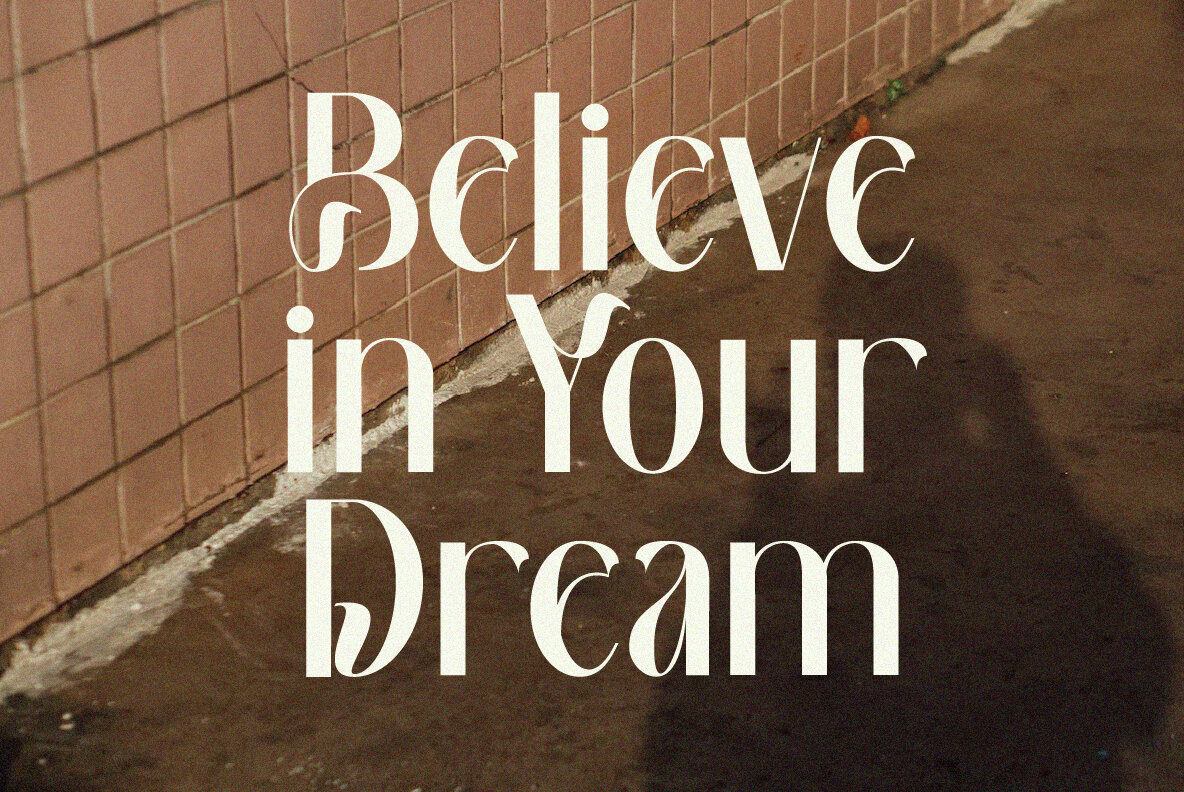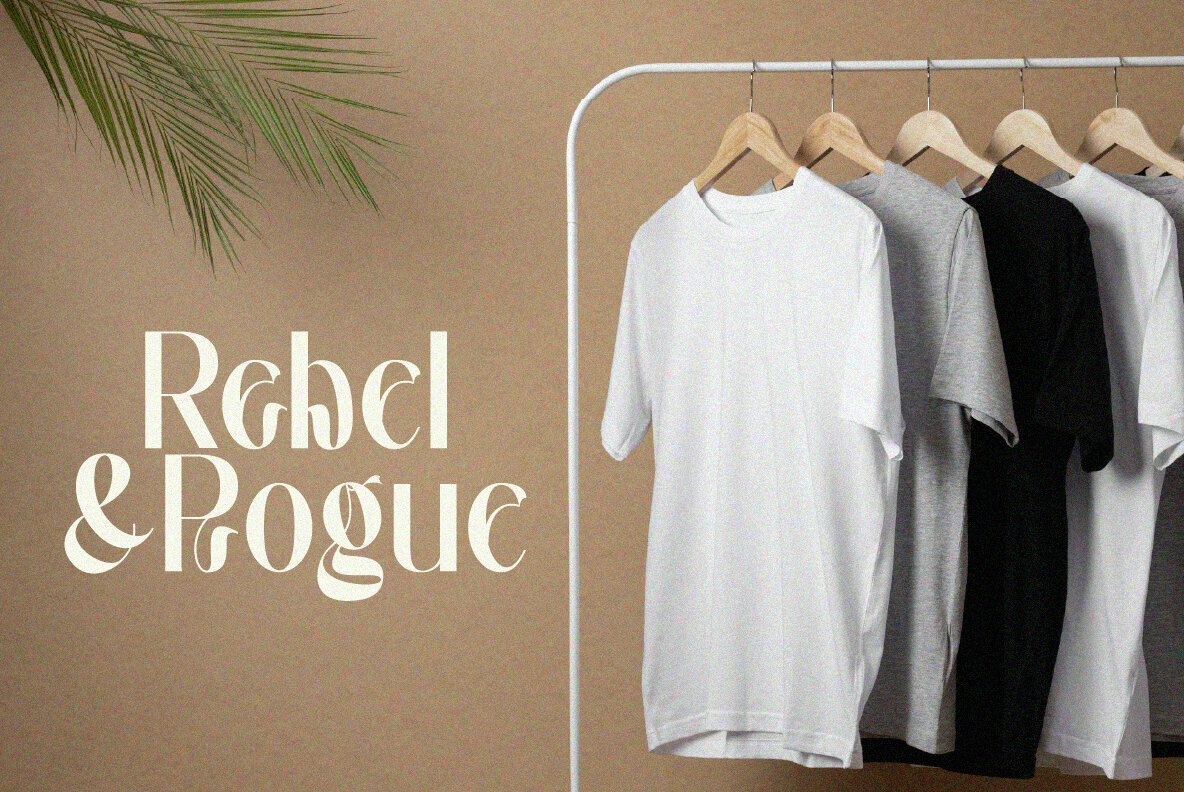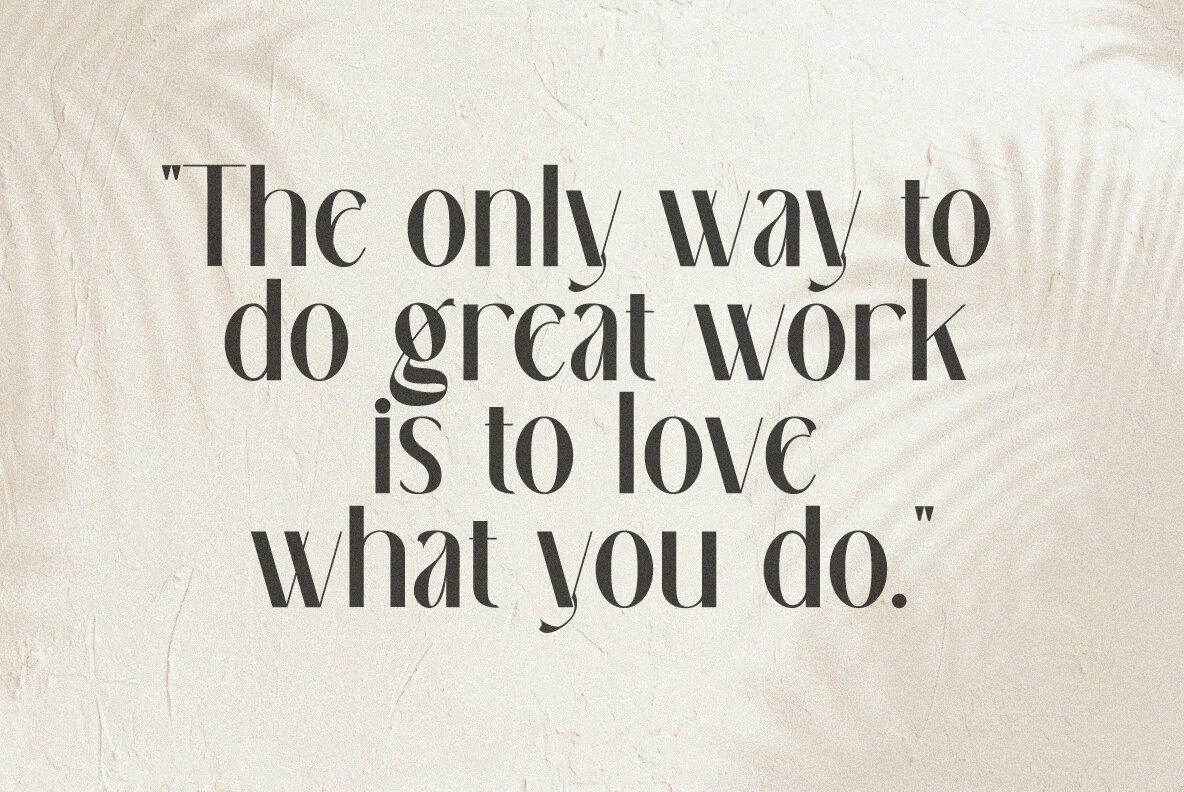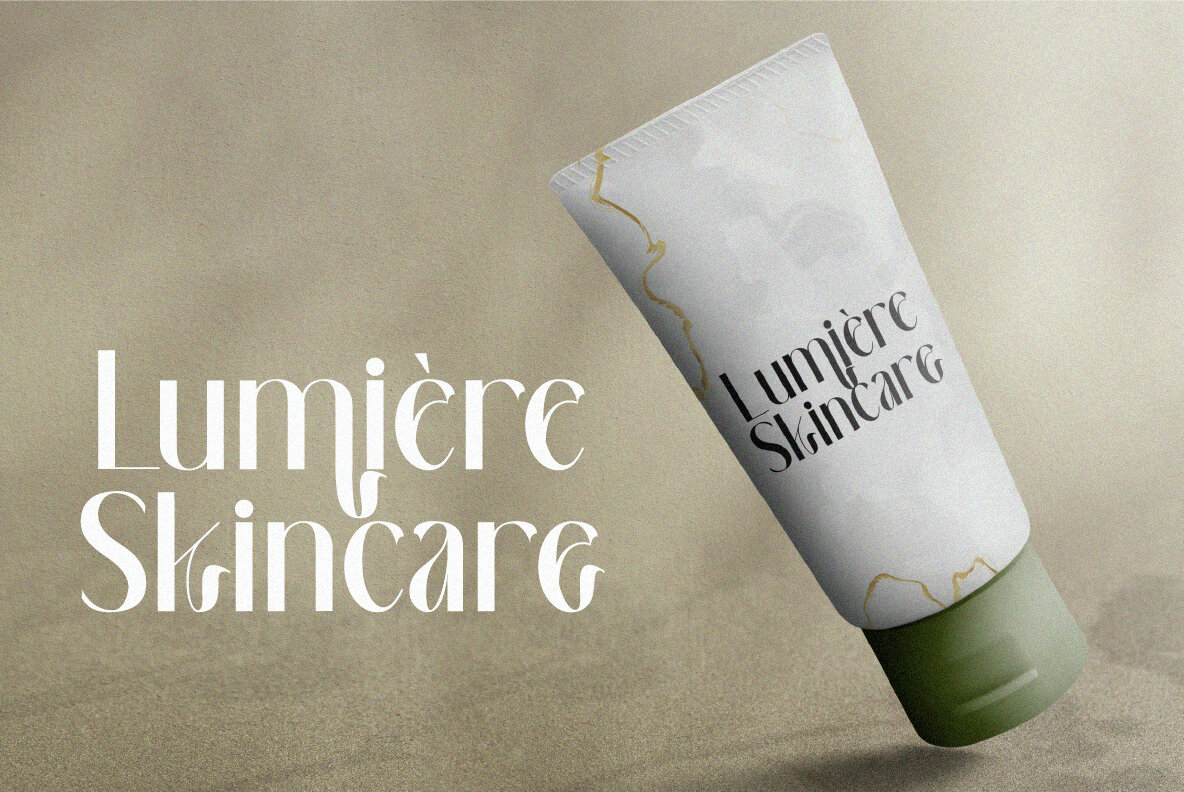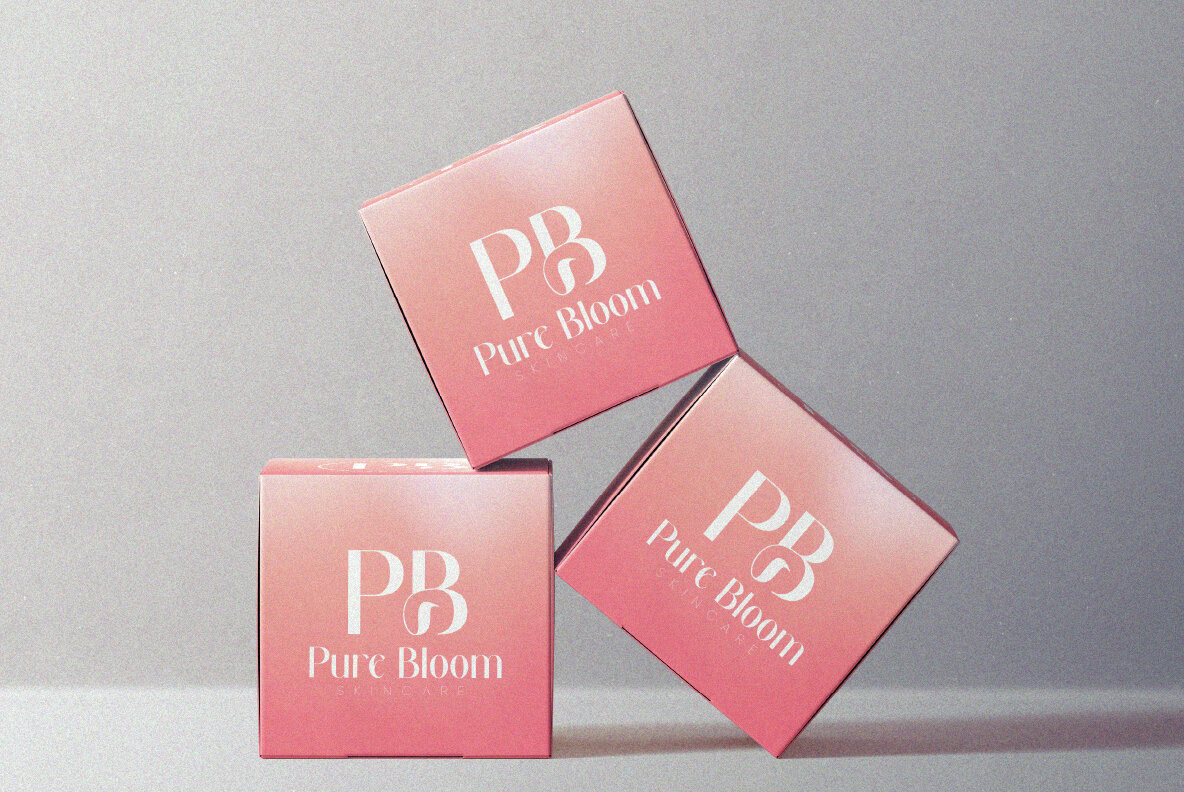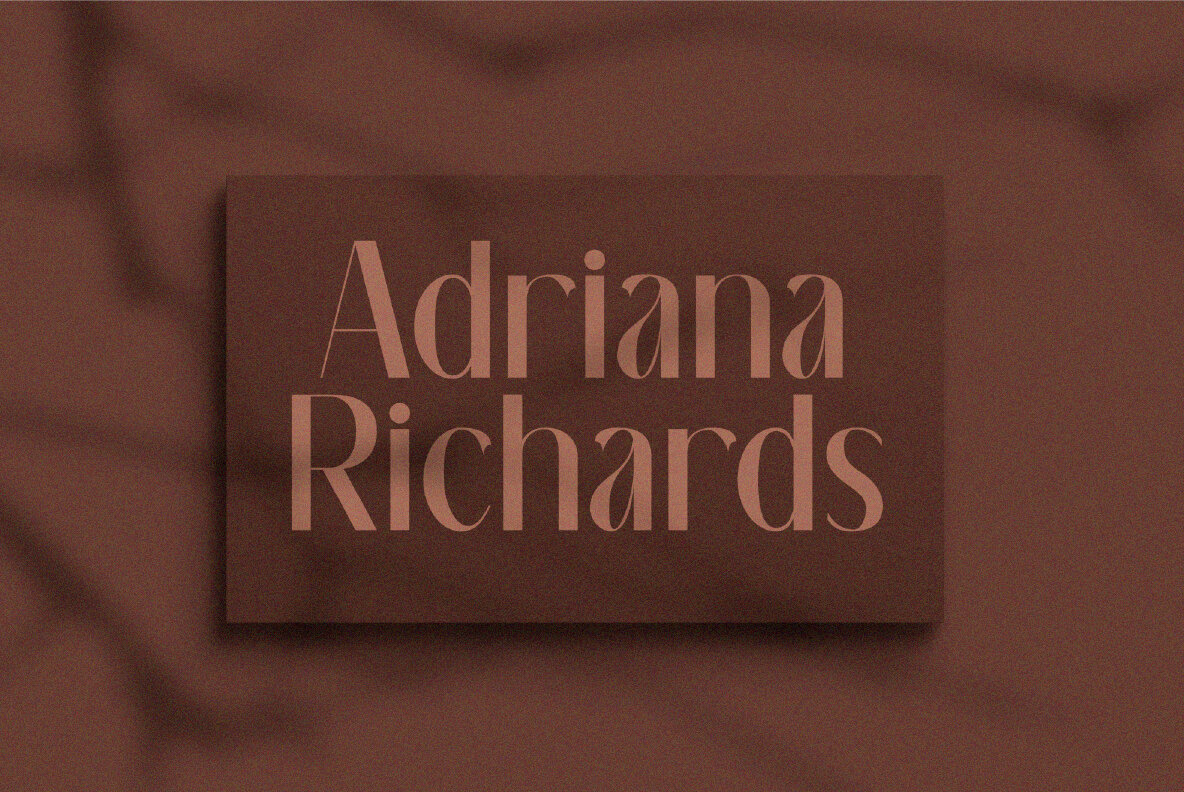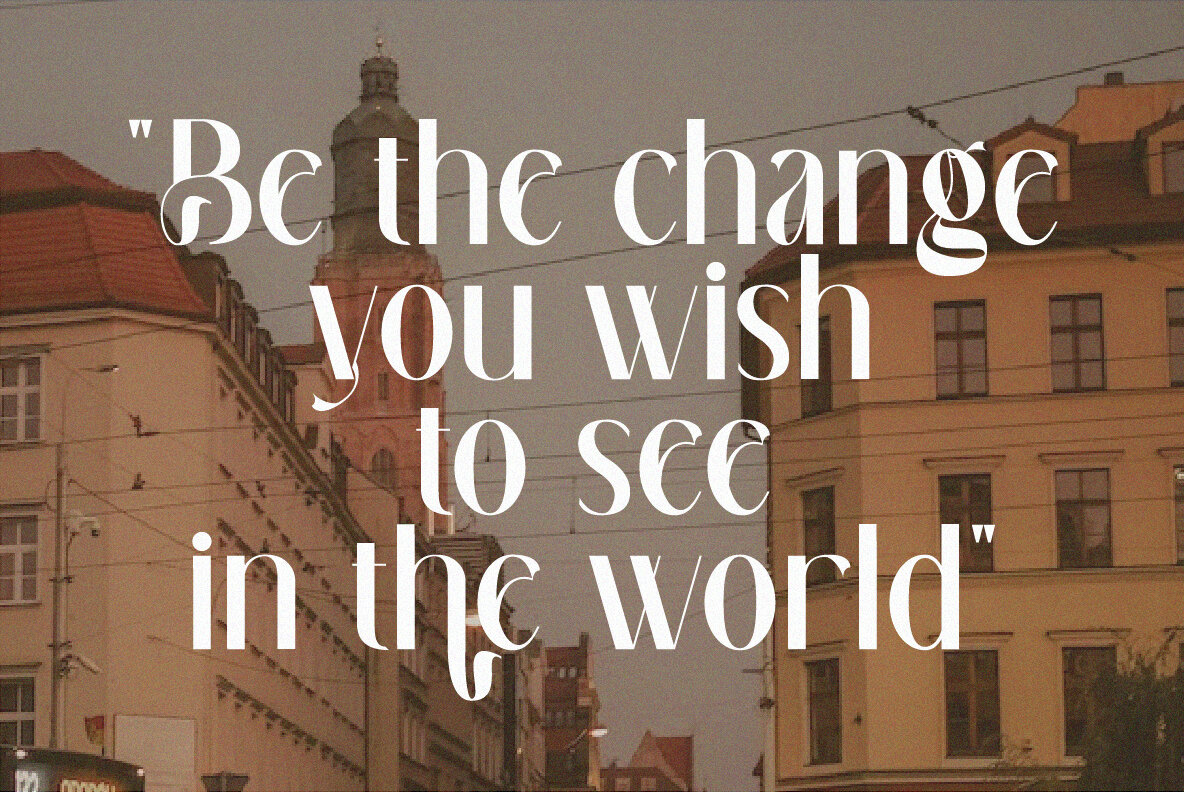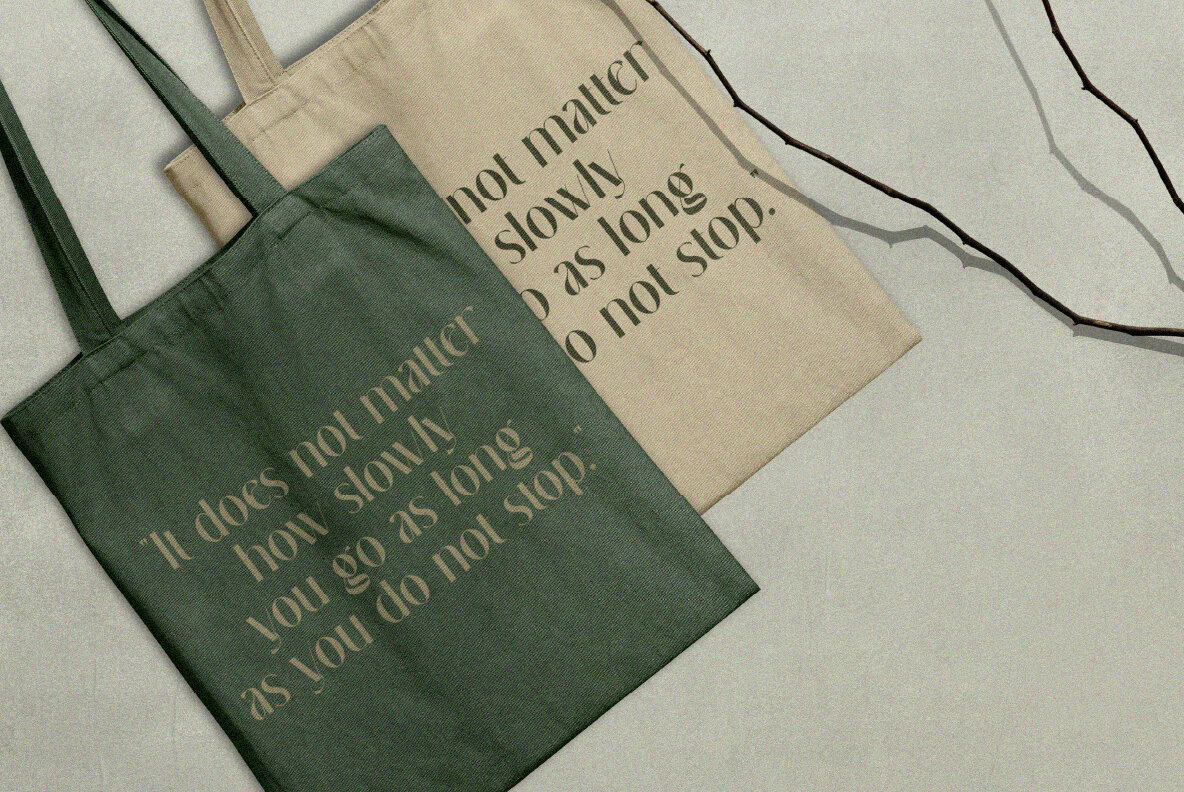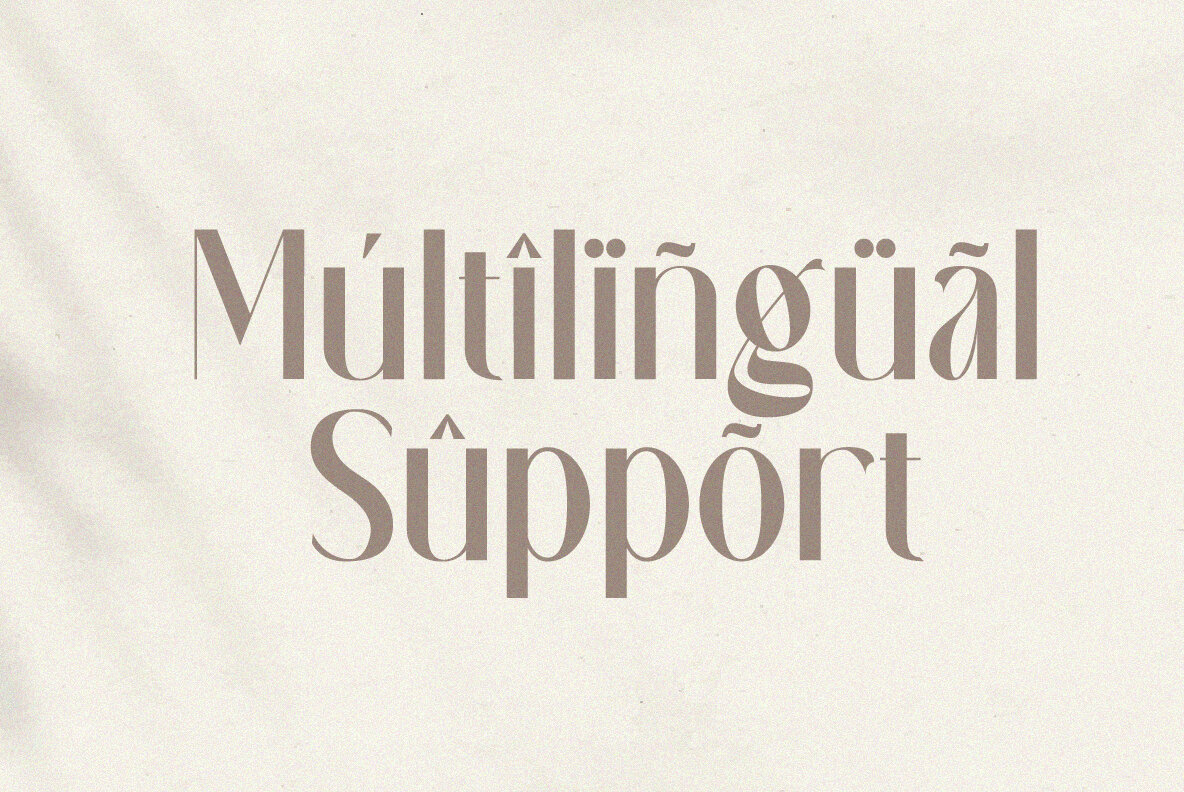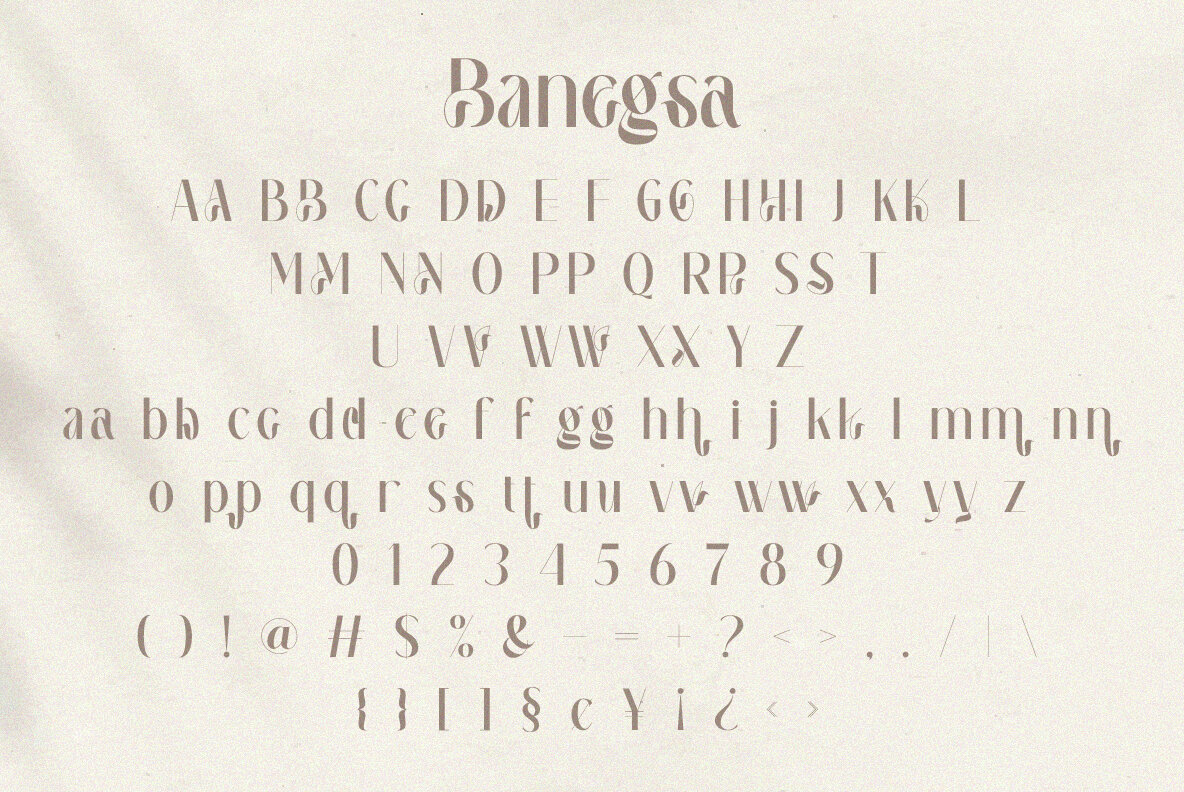
Banegsa Font
Banegsa Regular
Banegsa is an elegant sans serif font with a modern and cool aesthetic. This versatile typeface is an ideal choice for a range of creative projects, from logos and branding to invitations, stationery, and wedding designs. It also shines in digital applications like social media posts. The clean lines and sophisticated look of Banegsa make it a valuable addition to any designer's toolkit.
This font offers a range of features including uppercase and lowercase letters, numbers, punctuation, and multilingual support. Additionally, Banegsa includes alternate characters, offering greater flexibility for unique design needs. The PUA encoding ensures easy access to all glyphs and characters, making it user-friendly and efficient.